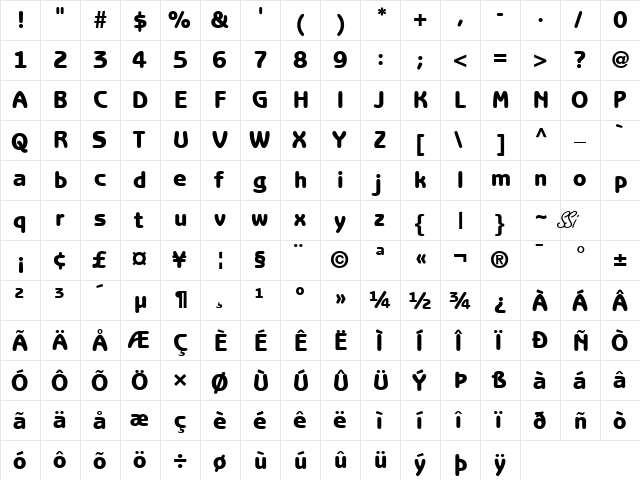
Express Deco GothicBlack SSi Black
Design Context for Express Deco GothicBlack SSi Typeface
Express Deco GothicBlack SSi takes a clean, functional approach — its unadorned letterforms prioritise legibility and work reliably across screen and print environments.
Font Pairing: Works well alongside a characterful serif or display font that can carry the expressive load while Express Deco GothicBlack SSi handles the functional copy.
Pro Tip: Pair Express Deco GothicBlack SSi with a display or serif font for headlines — its neutral character makes it an excellent supporting player in complex typographic systems.